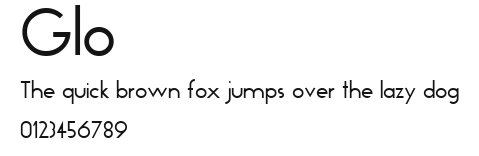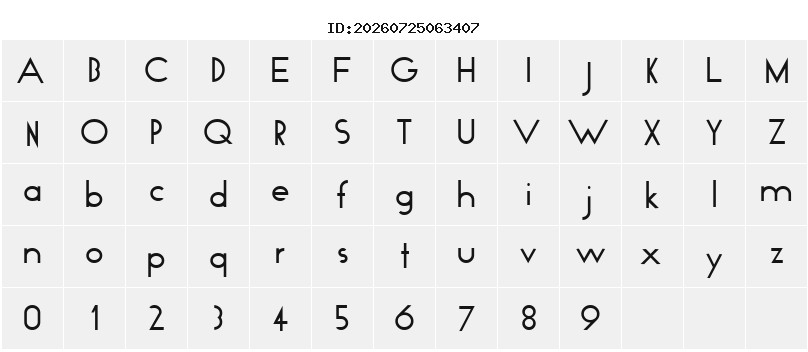
• Font Name: Glo
• Full Font Name: Glo Regular
About Glo.ttf
Glo.ttf is a modern, elegant sans-serif font designed for ultimate readability and visual harmony. Perfect for branding, headlines, web design, and print materials.